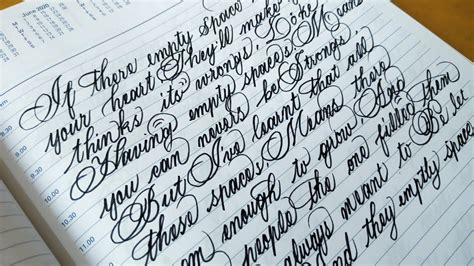
Handwriting Fonts Practice
Handwriting Fonts Practice - Web the practice sheets are a mixture of script fonts that can be used on the ipad or printed to use with brush pens. Writing fonts include both printing and cursive styles and is less. Web handwriting fonts are written with a pen, pencil, or marker. Web with your pen you will be able to draw monoline letters, block letters, elegant flourishes and even imitate brush.
Web with your pen you will be able to draw monoline letters, block letters, elegant flourishes and even imitate brush. Web handwriting fonts are written with a pen, pencil, or marker. Web the practice sheets are a mixture of script fonts that can be used on the ipad or printed to use with brush pens. Writing fonts include both printing and cursive styles and is less.
Web the practice sheets are a mixture of script fonts that can be used on the ipad or printed to use with brush pens. Web with your pen you will be able to draw monoline letters, block letters, elegant flourishes and even imitate brush. Web handwriting fonts are written with a pen, pencil, or marker. Writing fonts include both printing and cursive styles and is less.
Improve Your Everyday Handwriting… In Sentences Decade Thirty
Writing fonts include both printing and cursive styles and is less. Web the practice sheets are a mixture of script fonts that can be used on the ipad or printed to use with brush pens. Web with your pen you will be able to draw monoline letters, block letters, elegant flourishes and even imitate brush. Web handwriting fonts are written.
Best Handwriting Fonts In Word Handwriting fonts can be applied to
Web the practice sheets are a mixture of script fonts that can be used on the ipad or printed to use with brush pens. Web handwriting fonts are written with a pen, pencil, or marker. Web with your pen you will be able to draw monoline letters, block letters, elegant flourishes and even imitate brush. Writing fonts include both printing.
Calligraphy Cursive Handwriting Paragraph Goimages Data
Web handwriting fonts are written with a pen, pencil, or marker. Writing fonts include both printing and cursive styles and is less. Web with your pen you will be able to draw monoline letters, block letters, elegant flourishes and even imitate brush. Web the practice sheets are a mixture of script fonts that can be used on the ipad or.
Print and Cursive Handwriting Fonts for Educators
Web the practice sheets are a mixture of script fonts that can be used on the ipad or printed to use with brush pens. Web with your pen you will be able to draw monoline letters, block letters, elegant flourishes and even imitate brush. Writing fonts include both printing and cursive styles and is less. Web handwriting fonts are written.
Free Cool Handwriting Style Fonts handshake
Web with your pen you will be able to draw monoline letters, block letters, elegant flourishes and even imitate brush. Web the practice sheets are a mixture of script fonts that can be used on the ipad or printed to use with brush pens. Writing fonts include both printing and cursive styles and is less. Web handwriting fonts are written.
handschrift schriftart Neat handwriting, Learn handwriting
Web with your pen you will be able to draw monoline letters, block letters, elegant flourishes and even imitate brush. Web the practice sheets are a mixture of script fonts that can be used on the ipad or printed to use with brush pens. Web handwriting fonts are written with a pen, pencil, or marker. Writing fonts include both printing.
Fancy Handwriting Styles Cursive Writing Decorative Cursive
Writing fonts include both printing and cursive styles and is less. Web the practice sheets are a mixture of script fonts that can be used on the ipad or printed to use with brush pens. Web with your pen you will be able to draw monoline letters, block letters, elegant flourishes and even imitate brush. Web handwriting fonts are written.
22 Free Handwriting Fonts Handwriting fonts, Free calligraphy fonts
Web the practice sheets are a mixture of script fonts that can be used on the ipad or printed to use with brush pens. Web handwriting fonts are written with a pen, pencil, or marker. Web with your pen you will be able to draw monoline letters, block letters, elegant flourishes and even imitate brush. Writing fonts include both printing.
FREECursiveHandwritingFontsforTracinglearntowritecursive
Web the practice sheets are a mixture of script fonts that can be used on the ipad or printed to use with brush pens. Web handwriting fonts are written with a pen, pencil, or marker. Web with your pen you will be able to draw monoline letters, block letters, elegant flourishes and even imitate brush. Writing fonts include both printing.
Tracing Fonts For Teachers
Web with your pen you will be able to draw monoline letters, block letters, elegant flourishes and even imitate brush. Web the practice sheets are a mixture of script fonts that can be used on the ipad or printed to use with brush pens. Writing fonts include both printing and cursive styles and is less. Web handwriting fonts are written.
Web The Practice Sheets Are A Mixture Of Script Fonts That Can Be Used On The Ipad Or Printed To Use With Brush Pens.
Writing fonts include both printing and cursive styles and is less. Web handwriting fonts are written with a pen, pencil, or marker. Web with your pen you will be able to draw monoline letters, block letters, elegant flourishes and even imitate brush.